Step back in time and infuse your creative projects with an irresistible sense of nostalgia and distinctive style. Our curated selection of digital products in the 'Retro font' category offers an incredible opportunity to leverage the timeless appeal of bygone eras in your modern designs. You'll discover an expansive variety, from authentic vintage display typefaces to groovy 70s scripts and bold 80s aesthetics, each crafted to add unique character and visual interest. Embrace these versatile assets to effortlessly elevate your branding, social media, and print materials, ensuring your work stands out with professional charm and unforgettable flair.
#1 Gravelly Regular Font
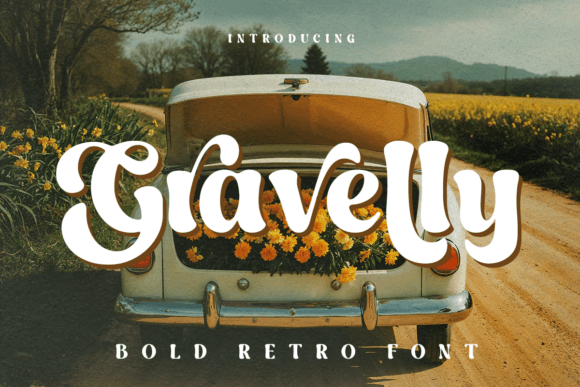
Meet Gravelly, the bold retro font that infuses vintage charm with modern versatility. Its distinctive strokes, playful swashes, and elegant flow make every word pop with confident personality, ensuring your designs grab attention and leave a lasting impression.
#2 De Augusta Font
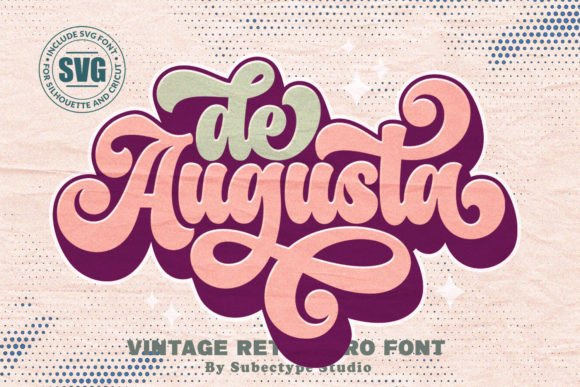
Channeling the vibrant energy of 70s and 80s typography, De Augusta is a bold, vintage retro font. Bring that iconic, statement-making style instantly to your next design.
#3 More Love Font
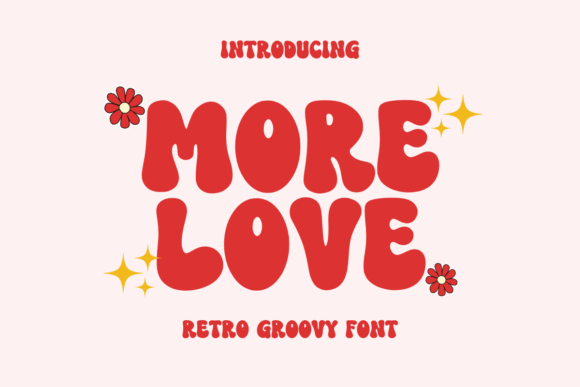
Add a touch of playful nostalgia to your designs with Love More, the cute retro font designed perfectly for Valentine's Day. Ideal for everything from quotes and t-shirts to greeting cards, it instantly brings a fun, loving vibe to any project.
#4 Triple Schools Font
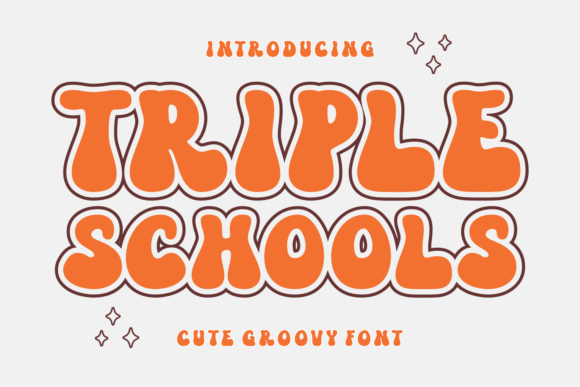
Inject authentic throwback style into your projects with Triple Schools, the groovy, retro font bringing a playful bohemian vibe to Cricut creations, logos, and T-shirt designs. Its chunky, handwritten aesthetic and SVG printable charm make it a wonderfully quirky choice for anyone daring to stand out.
#5 Retro Font
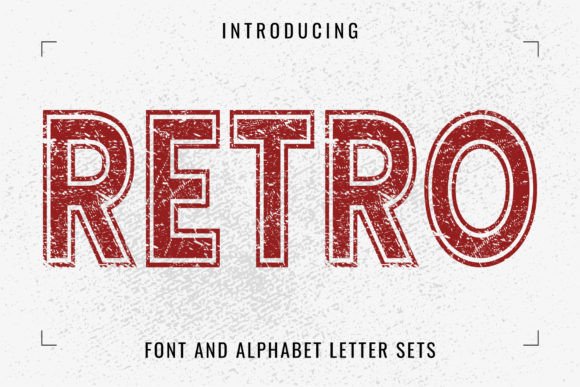
Meet Retro Font, the grunge-distressed display font ready to make your designs pop with vintage flair. Perfect for logos, posters, or T-shirts, this unique font will instantly elevate your projects and deliver stunning results you'll love.
#6 Cowboy Howdy Font
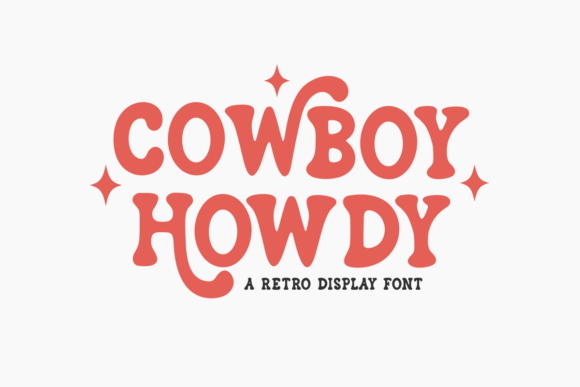
Infuse your designs with the rustic charm of Cowboy Howdy, a handcrafted retro font featuring unique alternates that effortlessly blend style and versatility. From striking t-shirts and memorable tote bags to captivating branding and greeting cards, this font brings a timeless, nostalgic flair to every project.
#7 Bigland Retro Font
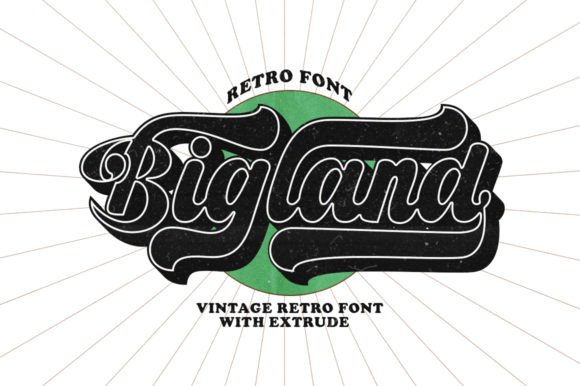
Bigland Retro is an urban retro font, perfect for crafting striking logotype lettering that confidently elevates any project. Easily access all its unique glyphs and swashes with PUA encoding, ensuring your designs truly stand out.
#8 Neighbor's Blanket Font
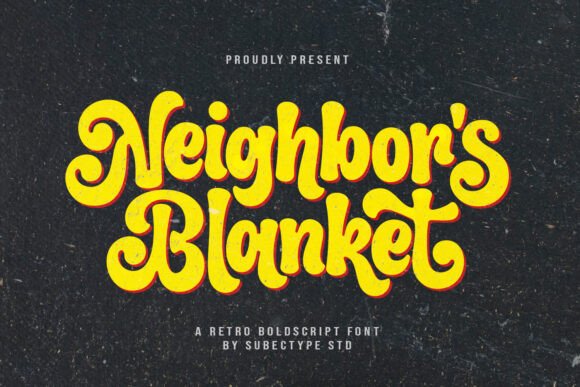
"Neighbor's Blanket" is a charming modern retro font that blends cozy nostalgia with contemporary flair. Its rounded edges and playful curves create a friendly, legible aesthetic perfect for branding, invitations, or any project needing warmth and charm.
#9 Retro Lover Font
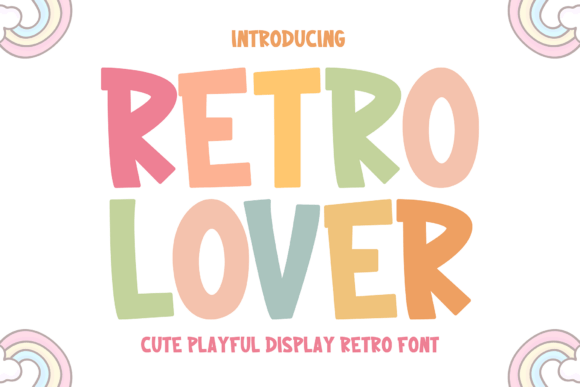
Inject instant retro-chic into your designs with Retro Lover, a playfully chunky, hand-lettered display font. Perfect for crafters, designers, and small businesses, it brings groovy nostalgia and fun to everything from t-shirts to invitations.
#10 Retro People Font
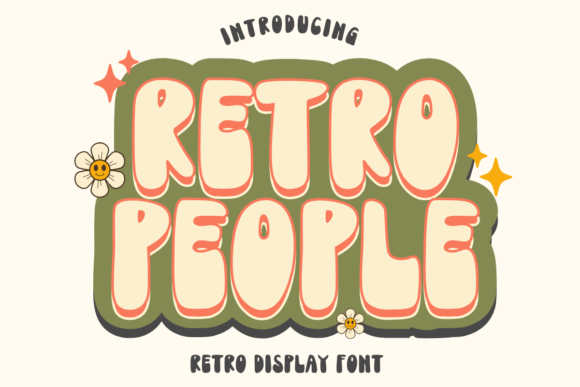
Inject some vintage fun into your projects with Retro People, the delightfully cute and cool retro font. Perfect for adding a charming flair to everything from quotes and apparel to packaging and posters, its versatility makes it a design favorite.
#11 Stay Retro Font
Dive into nostalgia with Stay Retro, a vintage-style font channeling the iconic typography of the 60s, 70s, and 80s. Its unique rounded corners make every word instantly recognizable, ensuring your designs grab attention with a special retro flair.
#12 Romantic Aura Duo Font
Meet the Romantic Aura Duo Font, a groovy, bubble-style retro font that perfectly channels the vibrant energy of the 70s. Its thick, curvaceous forms and playful ligatures create eye-catching designs, making your message not just read, but truly felt in social media, vintage apparel, or music posters.
#13 Hippie in Love Font
Transport your designs straight to the groovy 60s and 70s with this retro font. Its funky shapes and psychedelic vibes instantly add a cool, vintage flair perfect for posters, invitations, and any creative project.